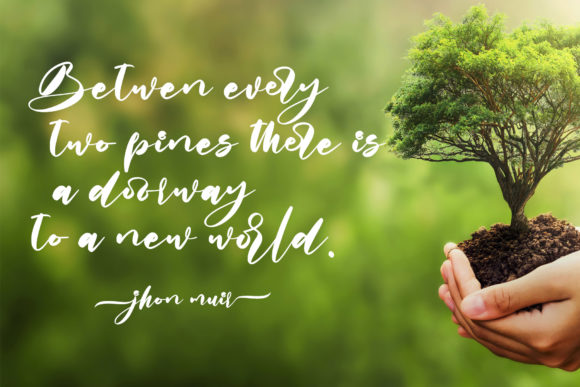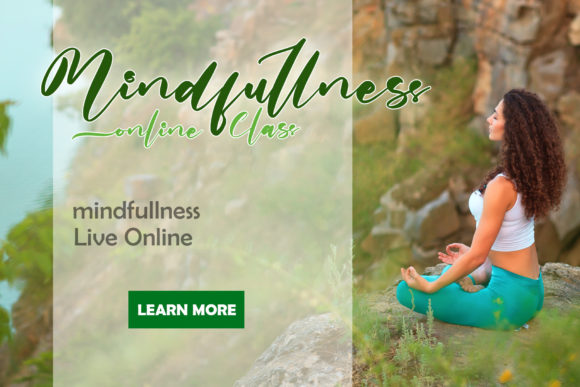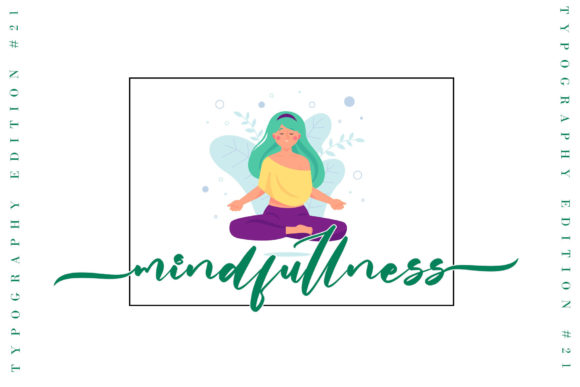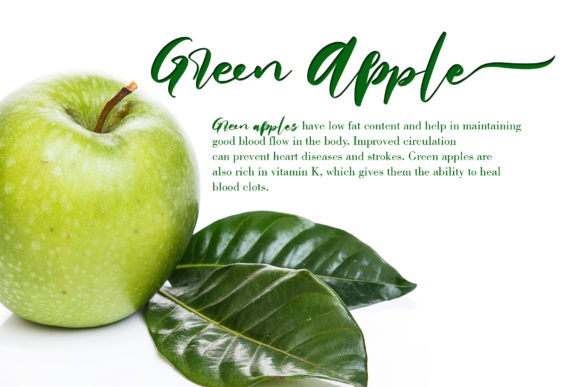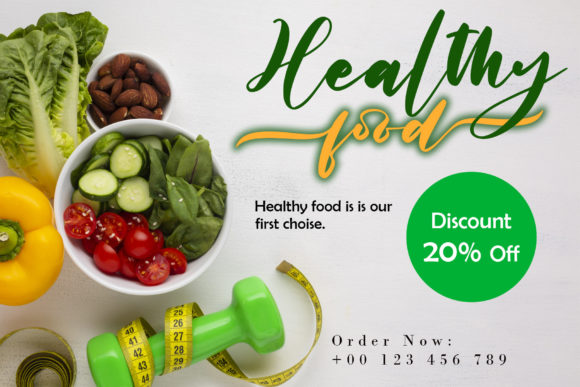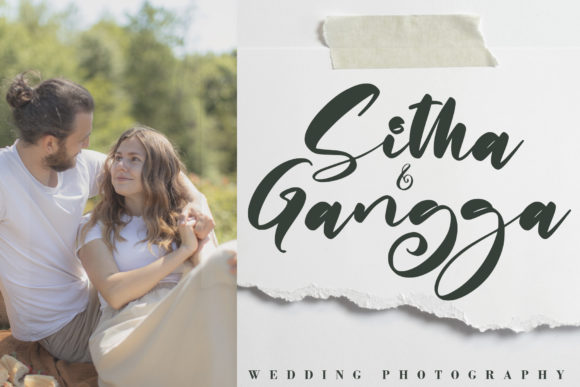
Introducing Berlie Font: Elevate Your Designs with Elegance and Versatility
In the world of typography, a font can make or break a design. For designers and crafters seeking a refined, all-round, and cursive handwritten font, Berlie Font is an exceptional choice. With its beautiful and well-balanced characters, Berlie Font seamlessly matches a wide pool of designs, making it an ideal addition to your typographic arsenal.
What Makes Berlie Font Stand Out?
Berlie Font boasts a unique blend of elegance and versatility, setting it apart from other fonts in its category. Its cursive handwritten style exudes a sense of sophistication and refinement, perfect for designs that require a touch of class. The font’s well-balanced characters ensure that your text remains clear and readable, even at smaller font sizes.
Berlie Font is PUA (Private Use Area) encoded, which means you can access all of the glyphs and swashes with ease. This feature allows you to unlock the full potential of the font, giving you the creative freedom to experiment with various design elements. With PUA encoding, you can effortlessly navigate the font’s extensive character set, including alternates, ligatures, and swashes.
Perfect for a Wide Range of Designs
Berlie Font’s versatility makes it an excellent choice for various design projects, including:
• Wedding and Event Invitations: Add a touch of elegance to your wedding invitations, save-the-date cards, and event announcements with Berlie Font’s beautiful cursive script.
• Branding and Packaging: Elevate your brand’s visual identity with Berlie Font’s refined and sophisticated style, perfect for logos, business cards, and product packaging.
• Stationery and Journaling: Bring a personal touch to your stationery, journals, and planners with Berlie Font’s beautiful handwritten style.
• Digital and Print Media: Use Berlie Font in your digital and print media, such as brochures, flyers, and social media graphics, to add a touch of elegance and sophistication.
Tips for Using Berlie Font Effectively
To get the most out of Berlie Font, consider the following tips:
• Pair with contrasting fonts: Combine Berlie Font with a sans-serif or serif font to create a visually appealing contrast and add depth to your design.
• Experiment with font sizes: Use Berlie Font in various font sizes to create a hierarchical structure and draw attention to specific design elements.
• Take advantage of swashes and glyphs: Use Berlie Font’s extensive character set to add flourishes and decorative elements to your design.
Berlie Font is an exceptional choice for designers and crafters seeking a refined, all-round, and cursive handwritten font. With its beautiful and well-balanced characters, PUA encoding, and versatility, Berlie Font is perfect for a wide range of design projects. Whether you’re creating wedding invitations, branding materials, or digital media, Berlie Font is sure to elevate your designs with elegance and sophistication.